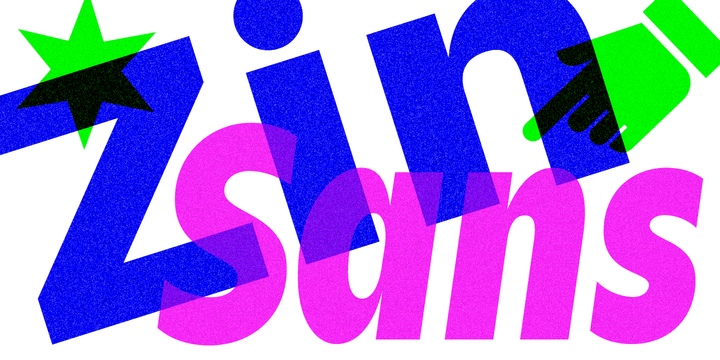
Zin Sans Font
Zin Sans Font is perfect for modern tech company branding, clean corporate identity, minimalist web design, professional software interfaces, contemporary business communications, streamlined product packaging, digital marketing campaigns, and efficient user experience design.
What makes Zin Sans Font exciting is its systematic efficiency that embodies clean modernism and optimized functionality with geometric precision and professional clarity. The font features streamlined letterforms with balanced proportions and functional character that evoke digital interfaces, systematic processes, and the refined simplicity of contemporary design thinking. Its distinctive clean styling and technical appeal communicate efficiency, innovation, and professional competence, making every message feel optimized for performance and engineered for maximum clarity.
The Zin Sans Font family includes regular weight with uppercase and lowercase letters, numerals, punctuation marks, and comprehensive technical symbols. Premium versions often feature multiple weights and systematic alternates that enhance the clean, professional aesthetic perfect for technology and business applications.
This efficient contemporary typeface brings instant modernity and functional credibility to any systems-focused project. Zin Sans Font Free Download delivers exceptional results for organizations seeking to communicate operational excellence, systematic thinking, and professional efficiency to technical audiences and business professionals.
The functional character of Zin Sans Font makes it particularly valuable for software companies, business consulting firms, and technology service providers. Its excellent readability across digital platforms ensures technical specifications and business communications remain crystal clear while maintaining the distinctive contemporary aesthetic that appeals to professionals seeking streamlined solutions and systematic approaches.
Business efficiency specialists appreciate how Zin Sans Font effortlessly conveys systematic competence and operational excellence. The font's streamlined proportions and functional details create polished business materials that establish trust with audiences who value process optimization, technical precision, and the clean efficiency of modern business practices.
The versatile functionality of this typeface extends to business automation, process consulting, and digital transformation services where systematic credibility enhances competitive advantage. Zin Sans Font Free Download provides creative professionals with an essential tool for developing memorable, efficiency-focused designs that resonate with audiences who embrace systematic thinking, operational excellence, and the streamlined precision of contemporary business solutions in today's optimization-driven marketplace.